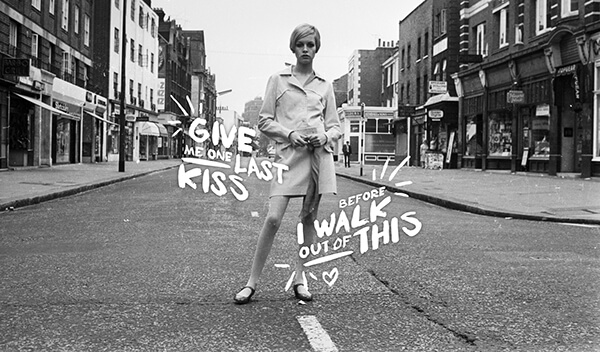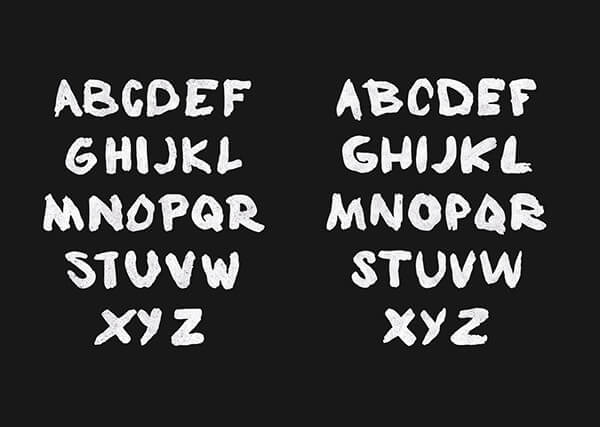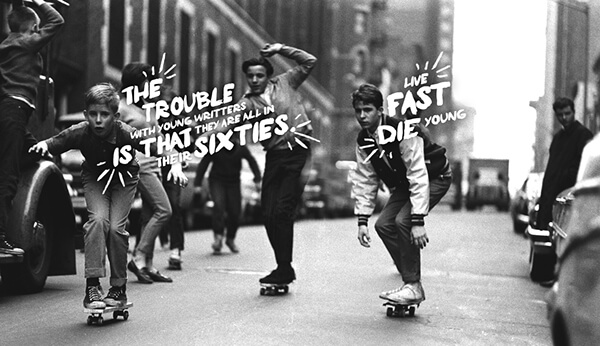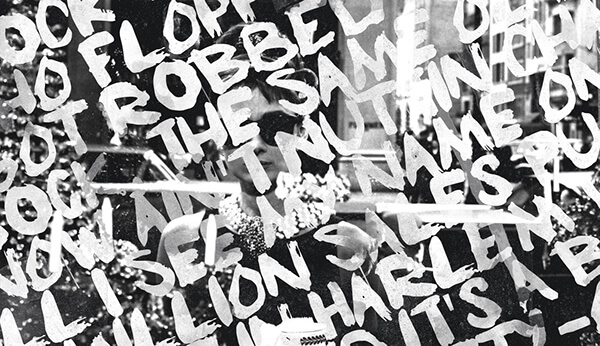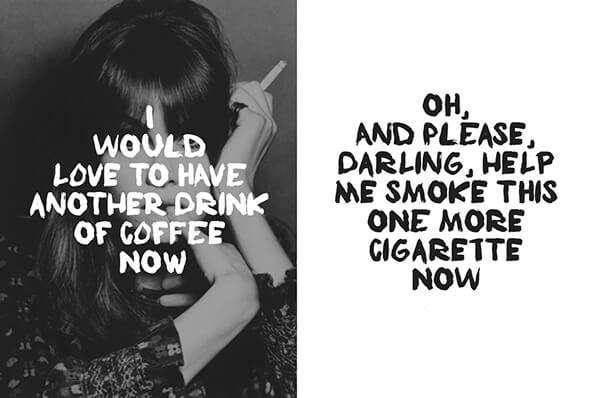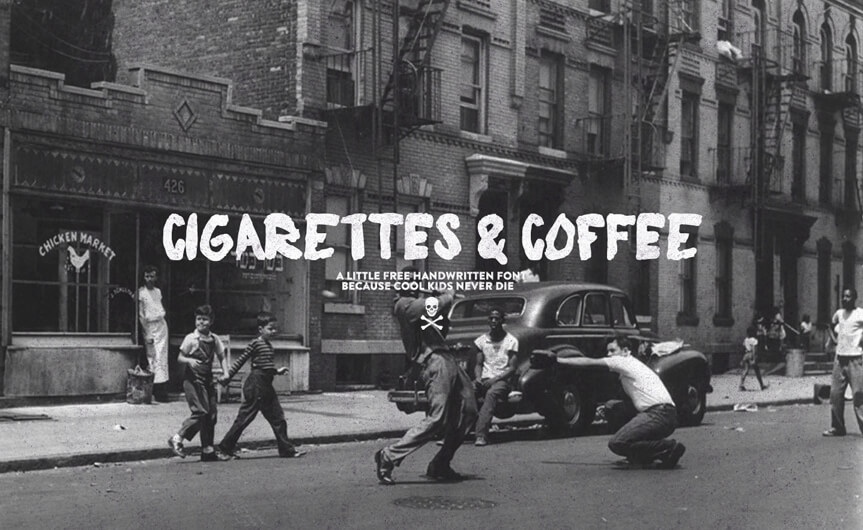
Cigarettes & Coffee Free Font
Cigarettes & Coffee it’s handwritten, this cool free font is available in uppercase, inspired by New York in the 60’s, it’s available for personal and commercial use.